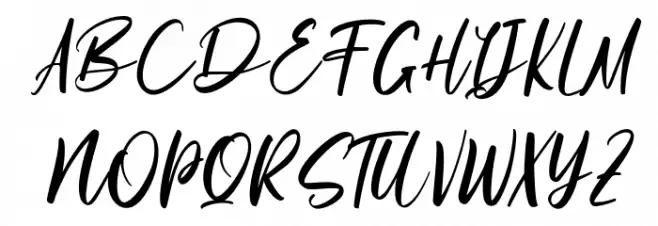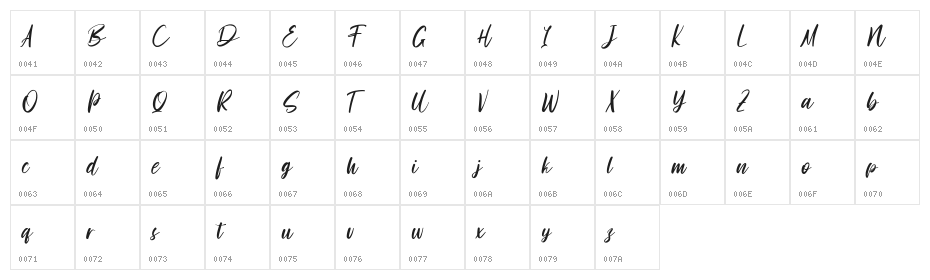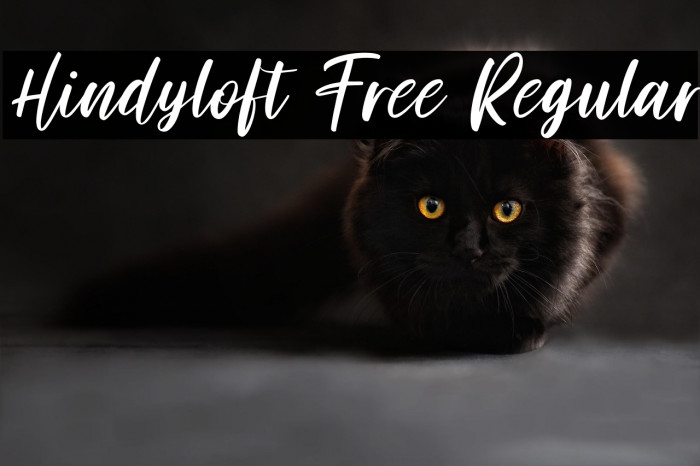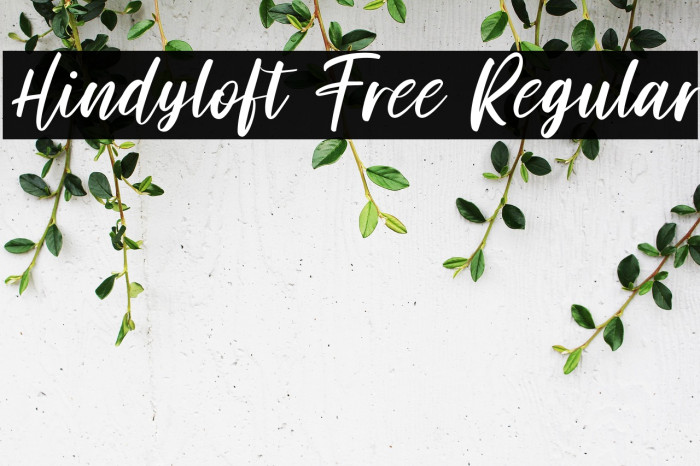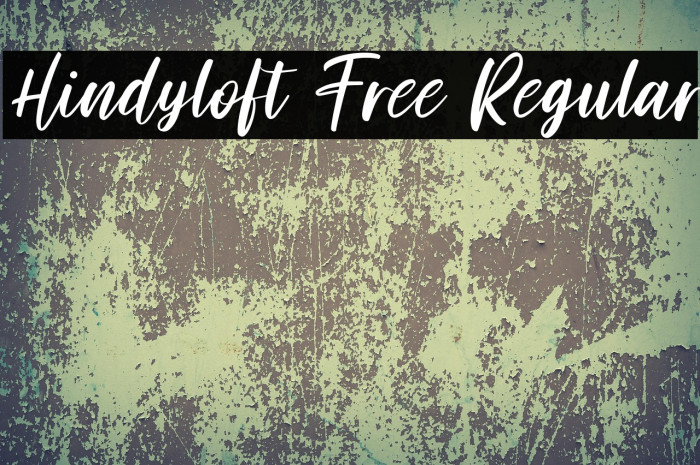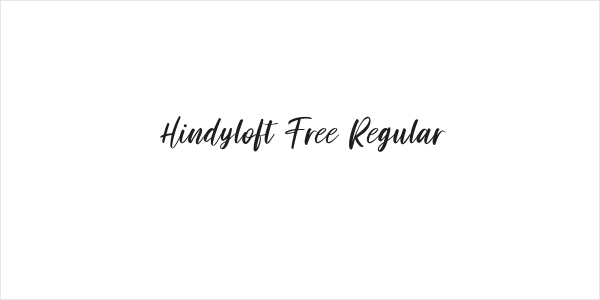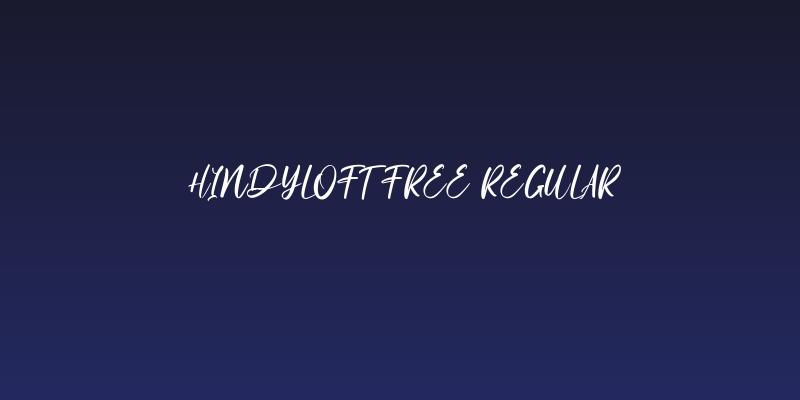
Hindyloft Free Regular Font
Hindyloft Free Regular Description
A flowing, handwritten script font with a casual yet elegant appearance, featuring connected letterforms and moderate slant. The strokes are consistent in thickness, with smooth curves and expressive terminals.
Fonts by Maulana Creative
| Overall Style | Modern, Decorative, Handwritten |
| Use Case | Logos, Headlines, Invitations, Decorative text |
| Proposed Projects | Invitations, greeting cards, branding, social media graphics, quotes, posters. |